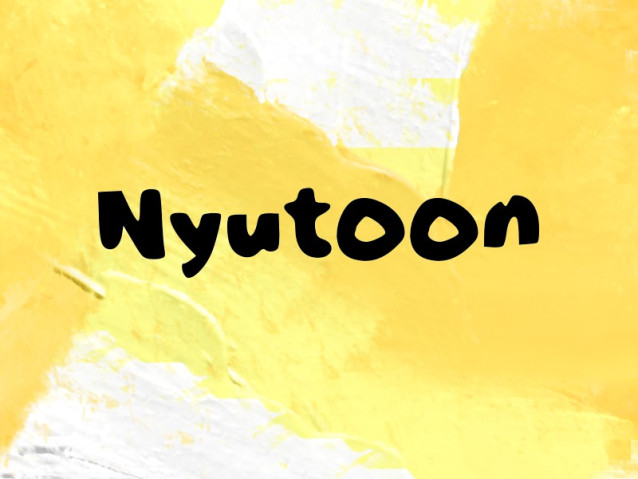
Nyutoon Font
Nyutoon Font is a playful and rounded display font inspired by cartoon and doodle styles.With its soft curves and friendly letterforms, Nyutoon brings a fun, cheerful, and approachable feeling to any design. It’s perfect for children’s projects, comics, posters, logos, packaging, and creative designs that need a cute and lively touch.